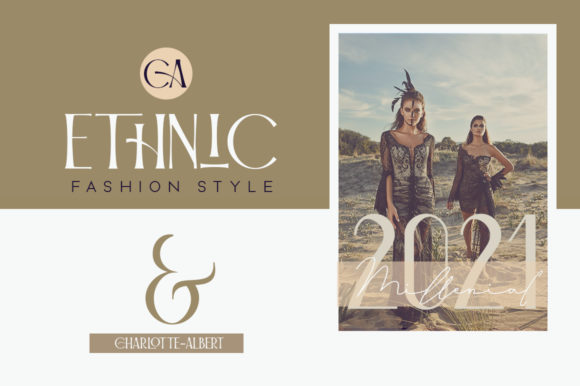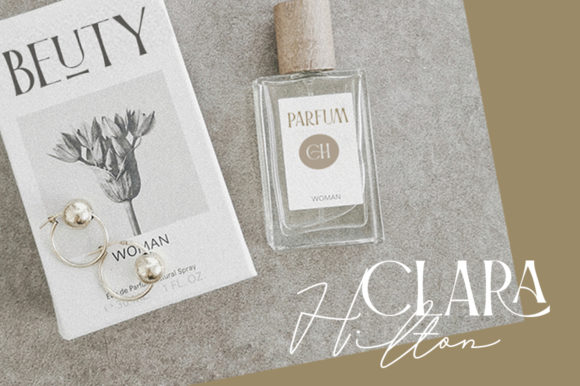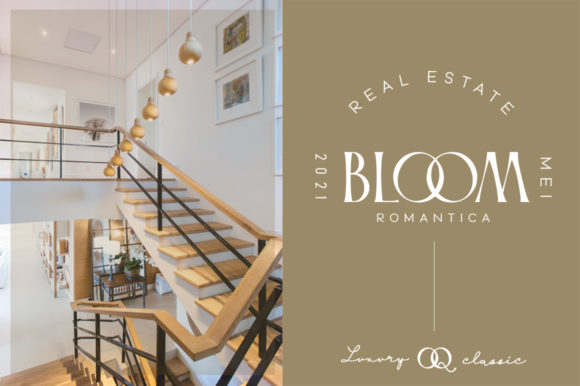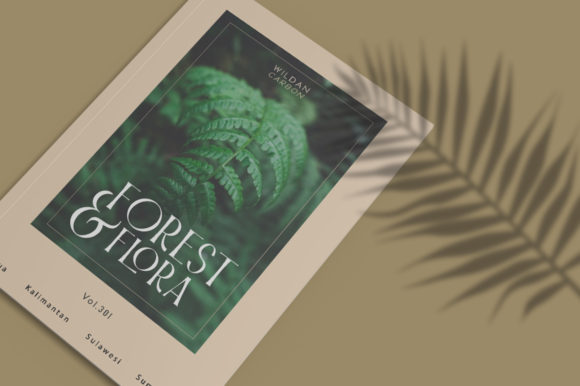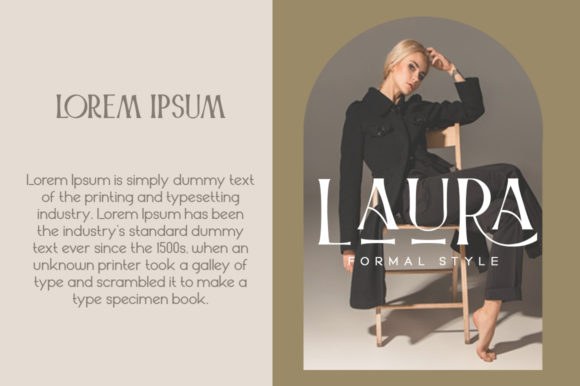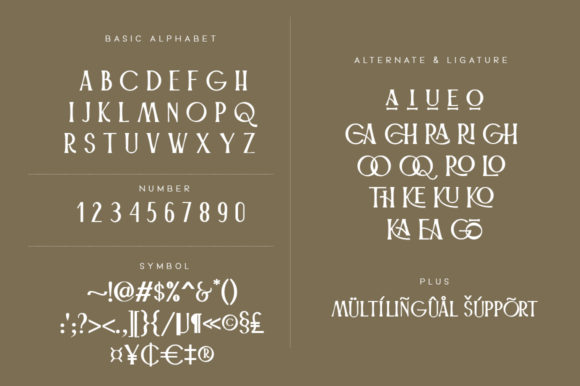
Discover the Elegance of Embargo Font: A Versatile Serif Font for Creative Projects
In the world of typography, fonts play a crucial role in conveying messages, expressing creativity, and setting the tone for various projects. Among the numerous fonts available, Embargo Font stands out for its incredible neatness and elegance. This serif font is designed to cater to a wide range of applications, making it a favorite among designers, crafters, and anyone looking for a sophisticated typographic solution.
What Makes Embargo Font Special?
Embargo Font is characterized by its classic serif design, which exudes a sense of tradition, reliability, and luxury. Its elegant appearance makes it perfect for projects where a touch of sophistication is required. Whether you’re working on a logo, wedding invitation, or a signage project, Embargo Font provides a refined and polished look that elevates your design.
One of the key advantages of Embargo Font is its versatility. It can be used for a multitude of purposes, including:
- Logos: Create a lasting impression with a logo that embodies elegance and professionalism.
- Wedding Invitations: Add a touch of romance and sophistication to your wedding invitations.
- Headings: Use Embargo Font for headings in your blog posts, articles, or website to give them a distinctive look.
- T-shirts: Design unique and stylish t-shirts with Embargo Font for a fashionable appeal.
- Letterhead: Enhance your business correspondence with a font that reflects professionalism.
- Signage: Create eye-catching signage that communicates your message effectively.
- Labels: Use Embargo Font for labels on products, files, or any other item that requires a touch of elegance.
- News: Ideal for newspapers, magazines, or online news articles where readability and style are paramount.
- Posters: Design compelling posters for events, promotions, or informational campaigns.
- Badges: Create badges for events, conferences, or employee identification with a stylish font.
Why Designers and Crafters Love Embargo Font
Designers and crafters appreciate Embargo Font for its unique blend of classic appeal and modern versatility. Here are a few reasons why it has become a go-to font for creative professionals:
- Ease of Use: Embargo Font is easy to read and works well in both digital and print formats.
- Customization: The font comes with a range of weights and styles, allowing for extensive customization to fit your project’s needs.
- Timeless Appeal: Unlike trendy fonts that may quickly become outdated, Embargo Font’s classic design ensures it remains relevant for years to come.
How to Use Embargo Font Effectively
To make the most of Embargo Font, consider the following tips:
- Pair it Wisely: Combine Embargo Font with complementary fonts to create visual interest and hierarchy in your designs.
- Adjust Size and Weight: Experiment with different sizes and weights of Embargo Font to emphasize certain elements and create a balanced design.
- Consider Context: Think about the context in which your design will be viewed and adjust your use of Embargo Font accordingly.
Embargo Font is a versatile and elegant serif font that offers a wide range of possibilities for designers and crafters. Its classic design, combined with its adaptability, makes it an excellent choice for various projects. Whether you’re looking to create a professional logo, design beautiful wedding invitations, or simply add a touch of sophistication to your signage, Embargo Font is sure to meet your needs. Explore the potential of Embargo Font and elevate your designs with its timeless elegance.